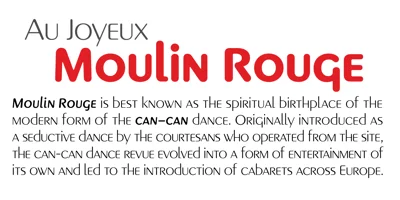
Pinot Grigio Modern Font
Pinot Grigio Modern Font is perfect for contemporary winery branding, modern wine bar menus, crisp white wine labels, sleek vineyard marketing, sophisticated wine tasting materials, fresh sommelier communications, modern cellar documentation, contemporary wine tourism, clean restaurant wine lists, and elegant modern wine packaging.
What makes Pinot Grigio Modern Font exciting is its crisp sophistication and contemporary wine elegance that captures the essence of modern viticulture with clean refinement and fresh innovation. This sophisticated typeface embodies the spirit of contemporary winemaking with its clean character forms and modern wine-inspired proportions that evoke stainless steel fermentation tanks gleaming in sunlight, minimalist tasting rooms with floor-to-ceiling windows, and the kind of fresh approach that brings traditional winemaking into the modern age. The font's contemporary character creates an immediate impression of innovation and the kind of crisp clarity that defines modern wine appreciation.
Pinot Grigio Modern Font family includes regular weight with contemporarily crafted character designs featuring crisp curves and modern wine proportions. The typeface maintains exceptional readability while showcasing its distinctive fresh personality through cleanly designed letterforms that seem to sparkle with the same clarity and brightness that makes Pinot Grigio the perfect contemporary wine choice.
Modern wine professionals consistently choose Pinot Grigio Modern Font for projects requiring authentic contemporary appeal and modern wine credibility. This remarkable typeface brings the freshness of modern winemaking to brand communications, combining crisp aesthetics with contemporary sophistication to create memorable wine experiences. The crisply designed characters ensure modern positioning across all applications, making it essential for contemporary wineries, modern wine bars, and any organization seeking to communicate the innovative freshness and contemporary sophistication that defines modern wine culture through Pinot Grigio Modern Font.